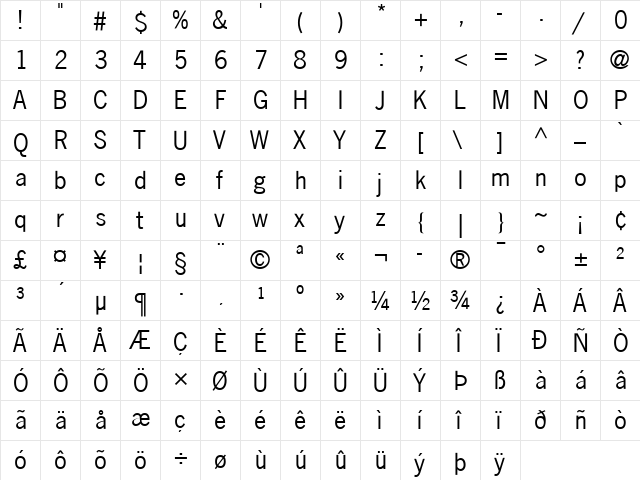
NewsGothic LT Regular
Design Context for NewsGothic LT Typeface
NewsGothic LT has the quiet confidence of well-executed sans-serif typography: versatile, unobtrusive, and dependable at any size. Its slender proportions lend an understated elegance to any composition.
A natural fit for high-end product packaging, luxury brand identities, and refined web typography.
Font Pairing: Pair NewsGothic LT with a medium or bold serif for headlines — the weight contrast creates an elegant, high-end feel.
Pro Tip: Use NewsGothic LT with generous tracking and line-height for the most luxurious effect — light sans-serifs reward spacious, considered layouts.